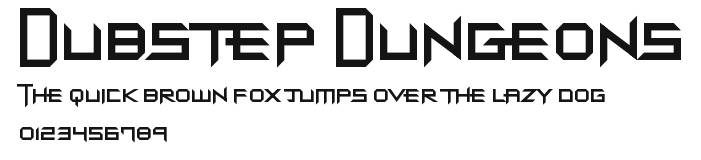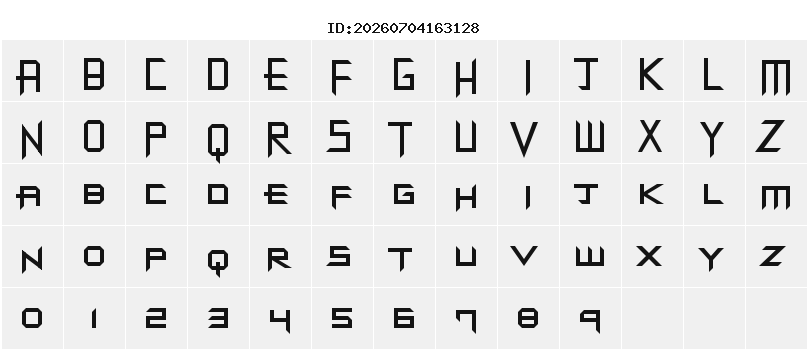
• Font Name: Dubstep Dungeons
• Designer: Darrell Flood
• Description: ‚ÄúDubstep Dungeons‚Äù was built with FontStruct
Dubstep Dungeons.otf is a modern, elegant sans-serif font designed for ultimate readability and visual harmony. Perfect for branding, headlines, web design, and print materials.